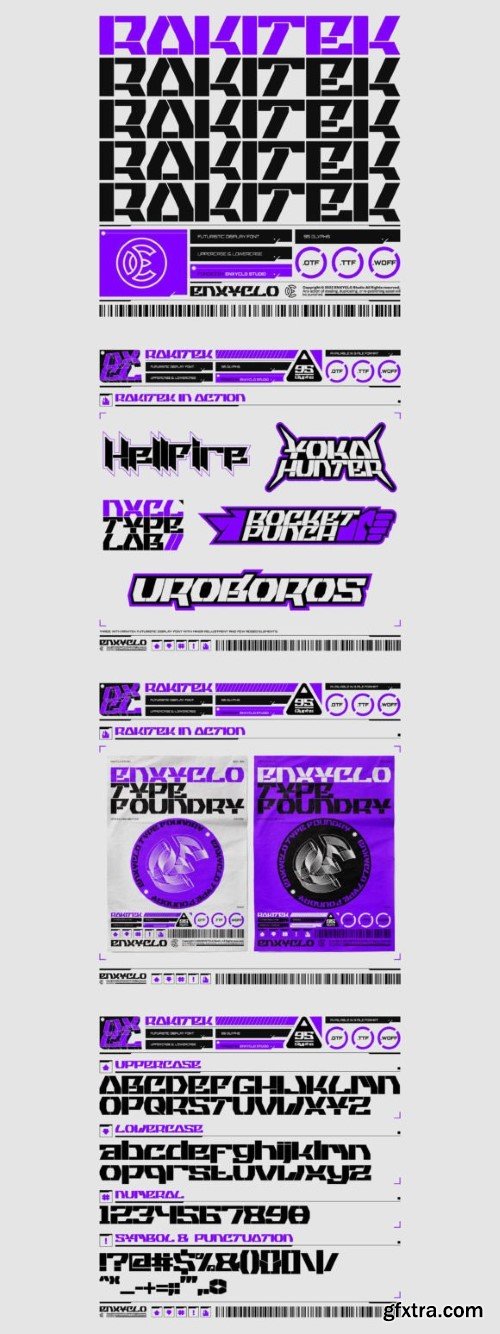
拉基特克字体
RAKITEK is neo neo-futuristic industrial cyberpunk display font. Masterfully designed to become a true favorite, this font has the potential to bring each of your creative ideas to the highest level! It was purposely crafted to be used in large point sizes, although it doesn’t lose its magic in small point sizes.
It is perfect for creative branding, events, headlines, billboards, magazines, websites, titles, posters, branding, t-shirt design, and logos.